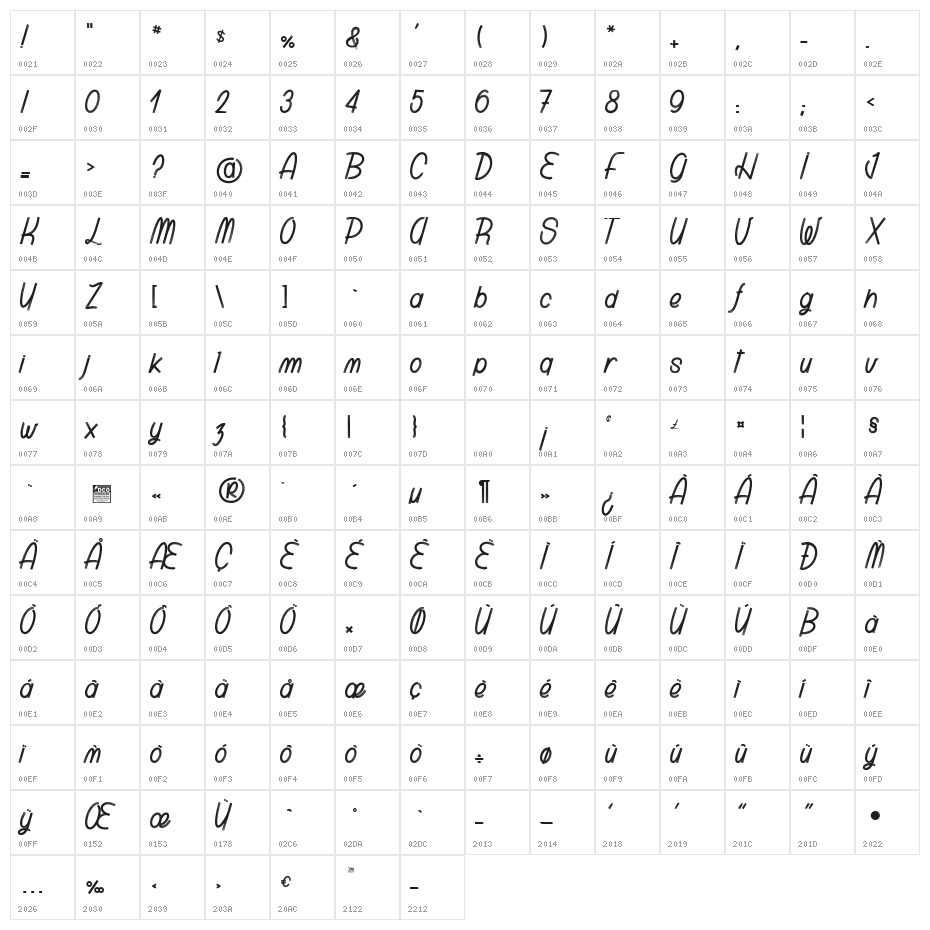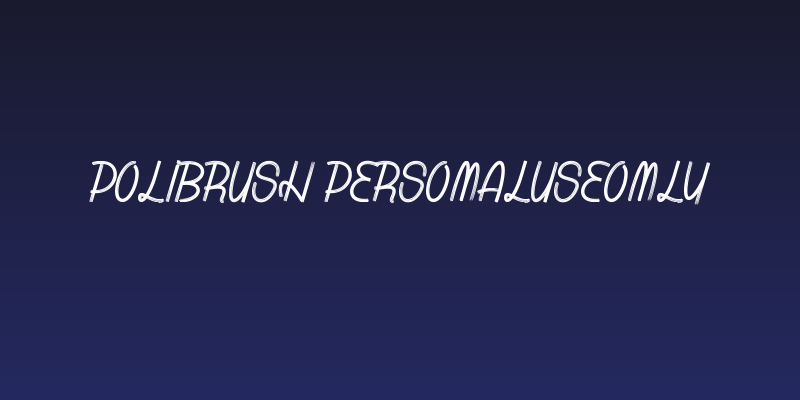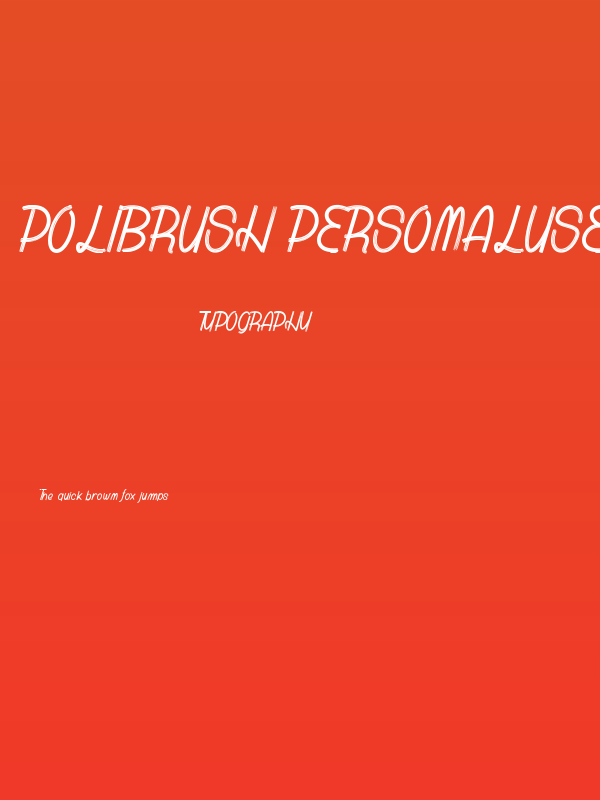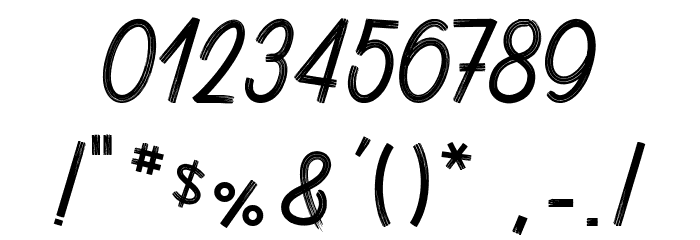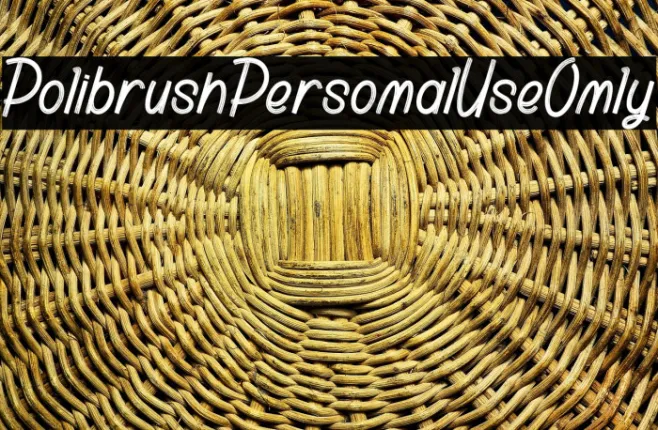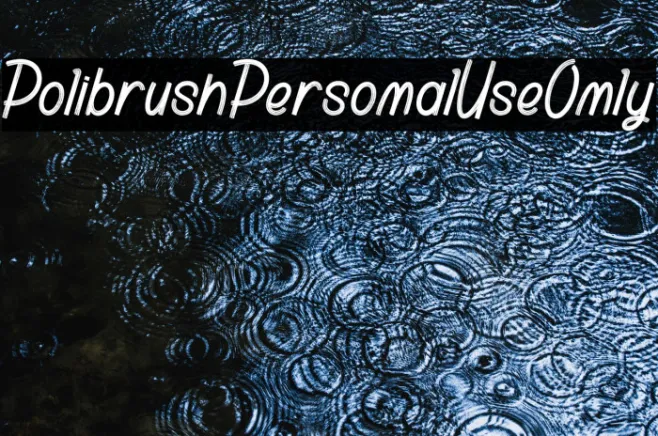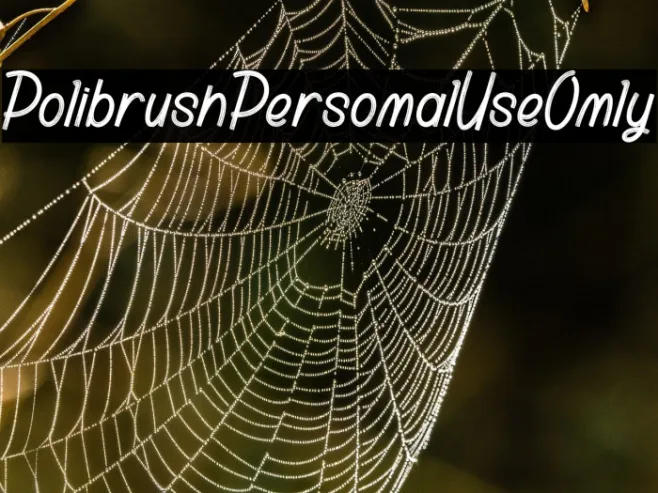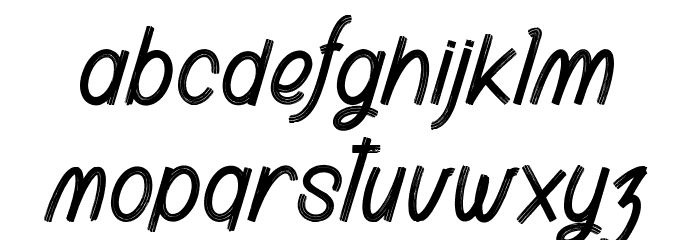
Polibrush_PersonalUseOnly Font
Polibrush_PersonalUseOnly Description
This font features a dynamic and energetic brush style, characterized by its bold and expressive strokes. The letters have a hand-drawn appearance, with varying thickness that adds a sense of movement and flair. The uppercase and lowercase letters maintain a consistent style, with a slight slant that enhances the casual, artistic feel. Numbers and special characters are equally expressive, making this font suitable for creative and informal projects. The overall design is both playful and impactful, capturing attention with its unique and artistic presentation.
| Proposed Projects | Ideal for posters, artistic branding, social media graphics, and creative invitations. |